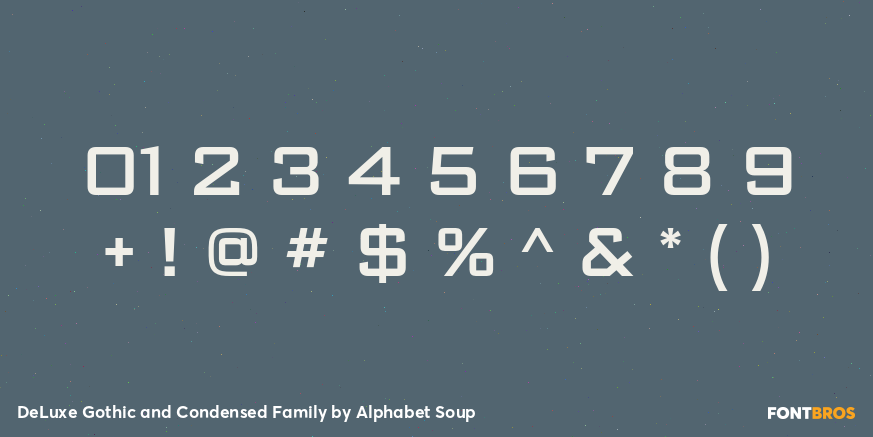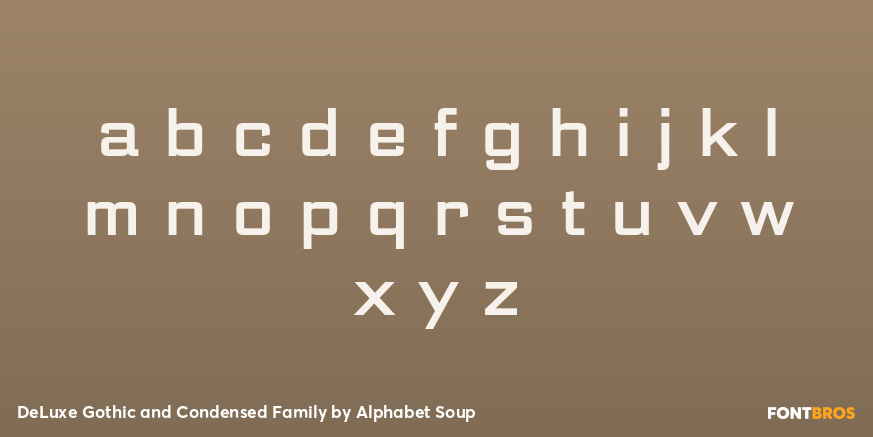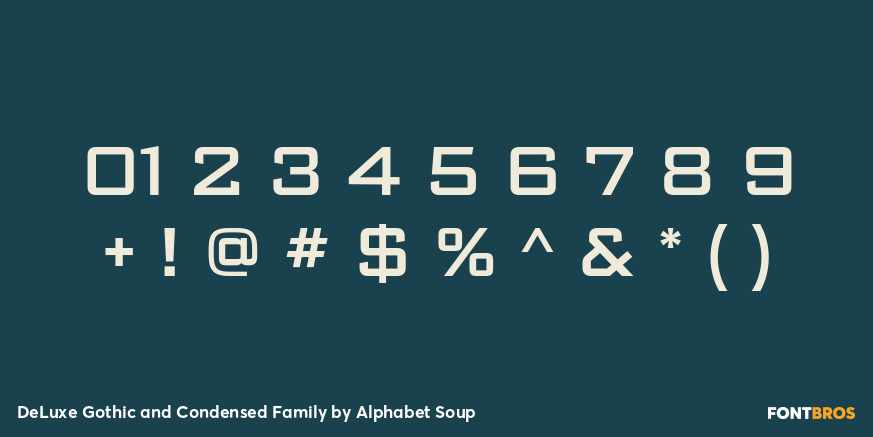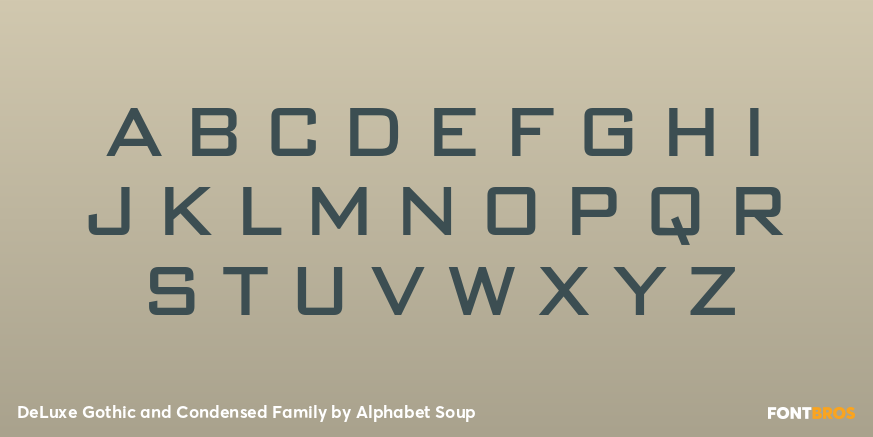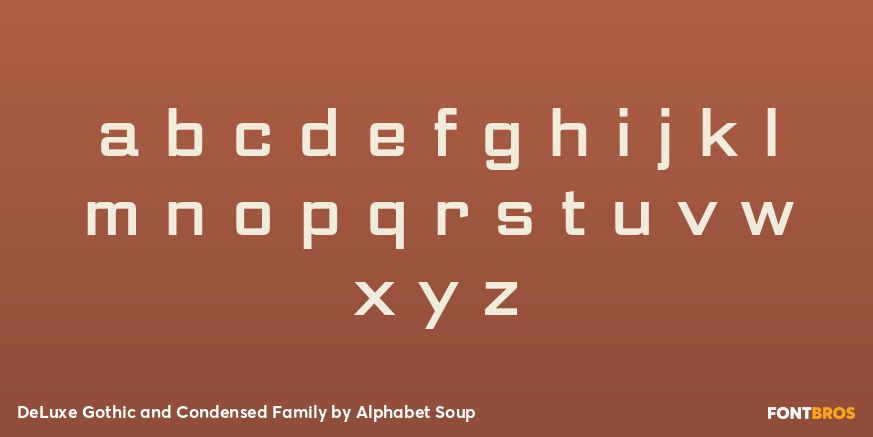
DeLuxe Gothic and Condensed Family
Font Bundle by Alphabet Soup
Originally designed in the early '30s, Bank Gothic never had a true set of lowercase characters?until now! Michael Doret's "reimagining" of Bank Gothic remedies that situation. His new DeLuxe Gothic should be thought of as a 21st Century update of a 20th Century classic, and can be used for display as well as for text.